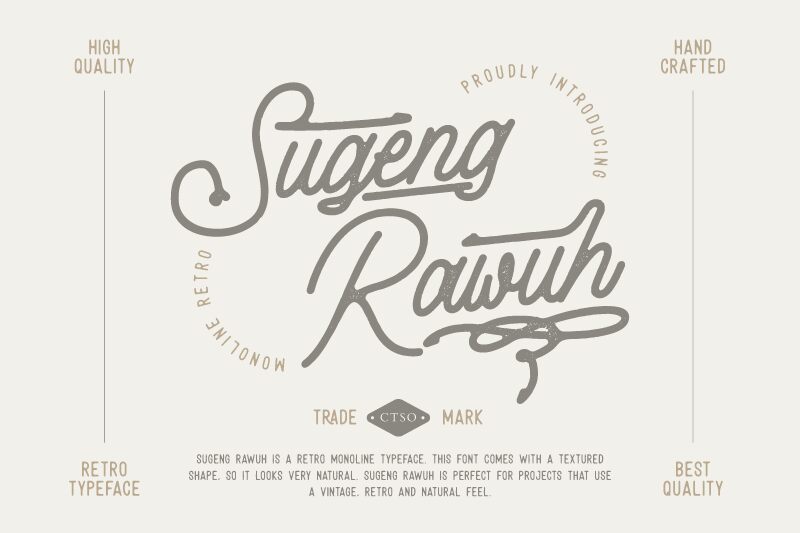
Sugeng Rawuh Regular
Sugeng Rawuh, the latest creation of Creatype Studio, is a charming monoline retro script font that will transport you to the golden days of vintage design. With its light weight and effortless strokes, this font adds a touch of elegance and sophistication to any project. Ideal for wedding invitations, fashion branding, or social media graphics, Sugeng Rawuh is a versatile typeface that exudes personality and style. So whether you're crafting a logo for your new business or designing a poster for your next event, let Sugeng Rawuh be your go-to semi-bold font for all things retro and chic.